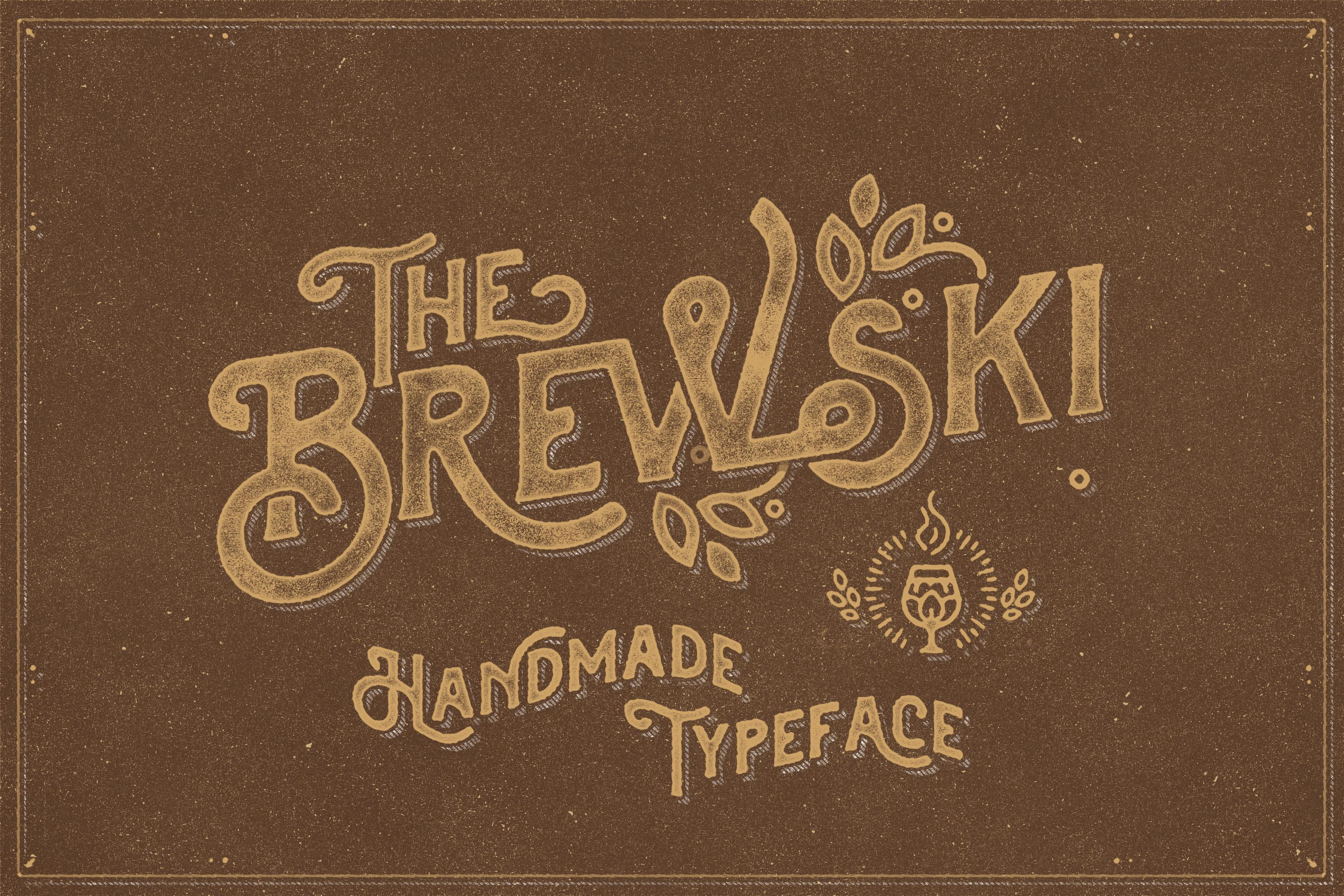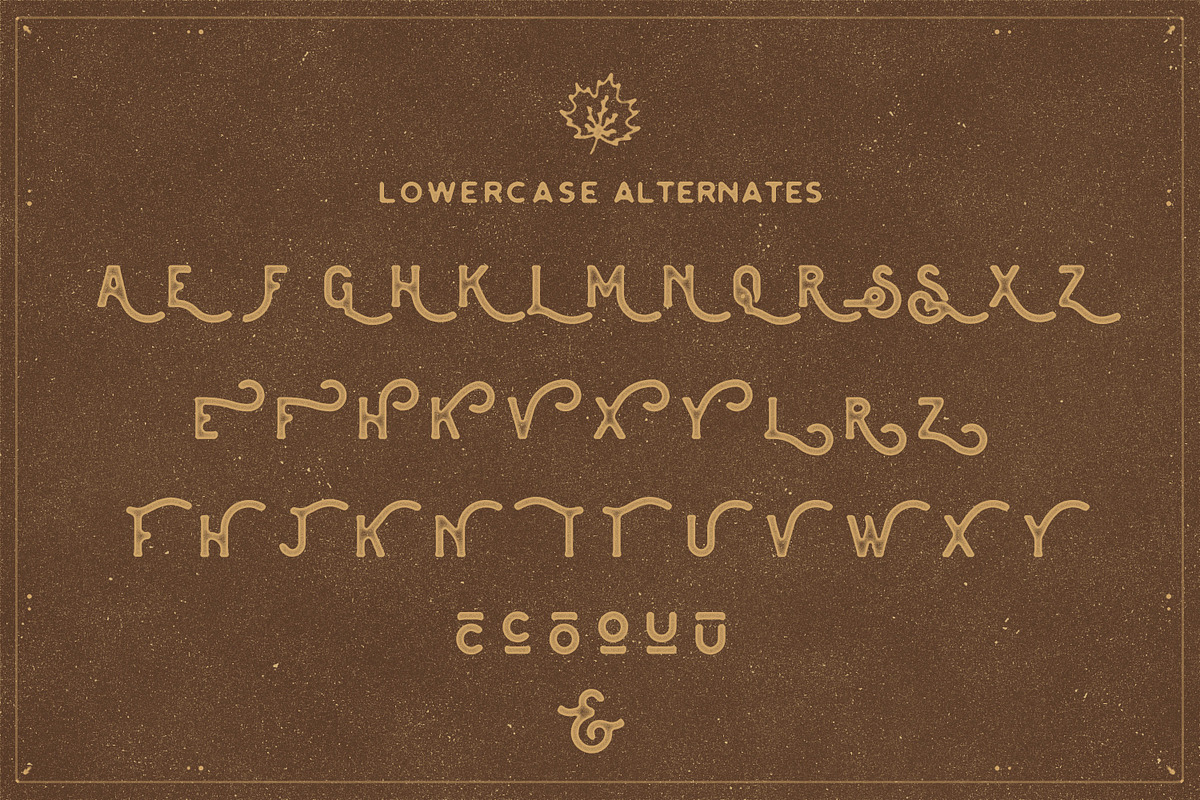
The Brewski - Textured Typeface
Brewski is aTextured typeface, with touch of many beautiful alternates character and ornament makes this font look stylist. Inspired by vintage Brewery packaging and Beer advertising from the early 20th century. It is perfect for vintage logo design, headlines or packaging design. Brewski designed with Stylistic Alternates and Contextual Alternate in some characters that allows you to mix and match pairs of letters to fit your design. This font good for vintage design, t-shirt, logo, labels, posters and etc.
Character set A-Z with special uppercase letters
I fell in love with this font, esp the inside shade/texture of the lettering ... well when I downloaded it, it did not have that texture/grunge (shading) you see within the letters. I feel like the artist added this extra texture to the inside to give it a bit more aged feel. But when you download it, it's just not the same. (I am also not speaking of the grunge texture that's on the brown background.) What you see is not what you will get with this font.